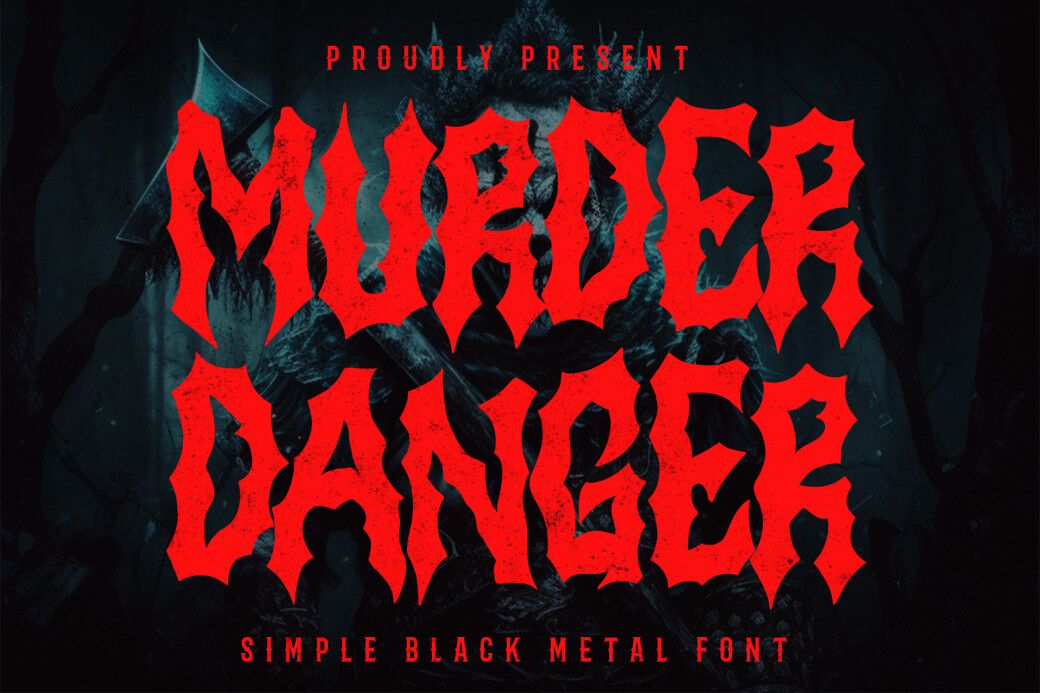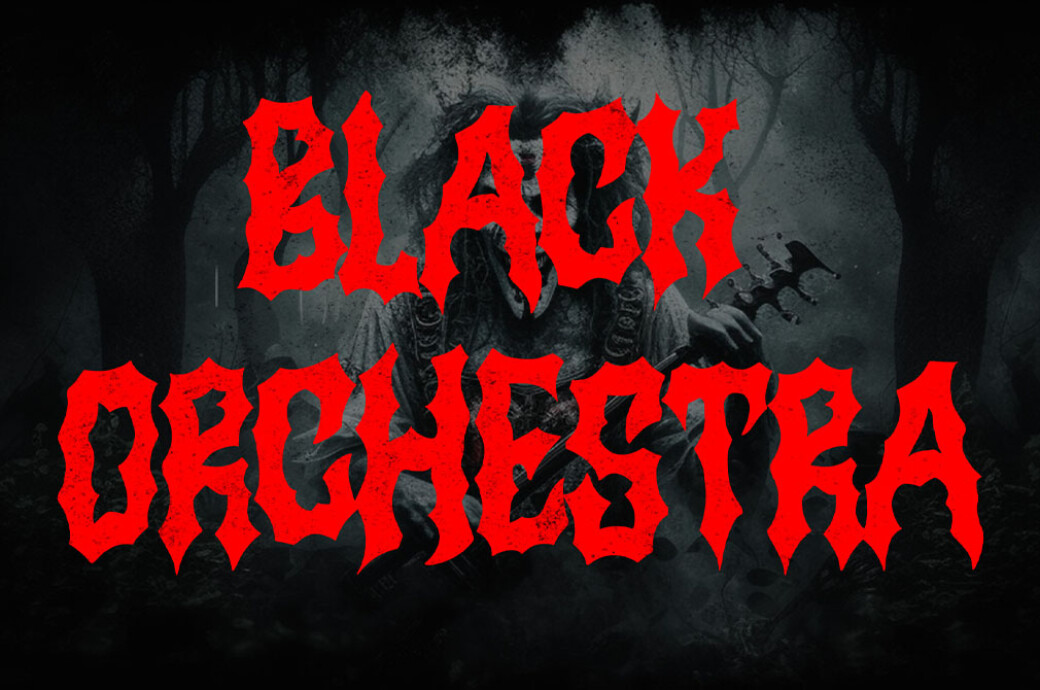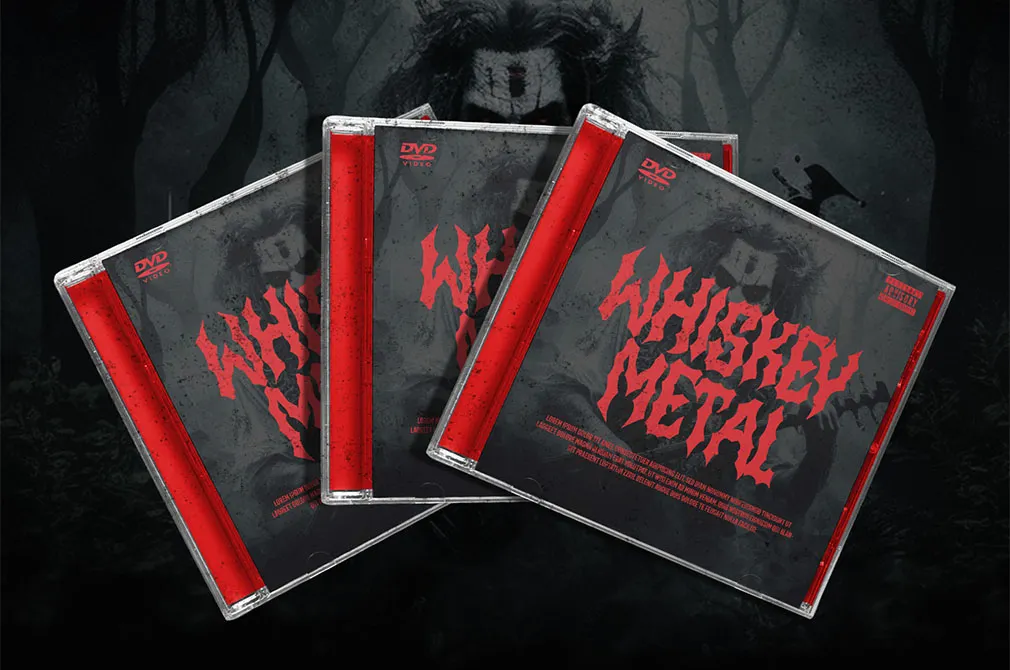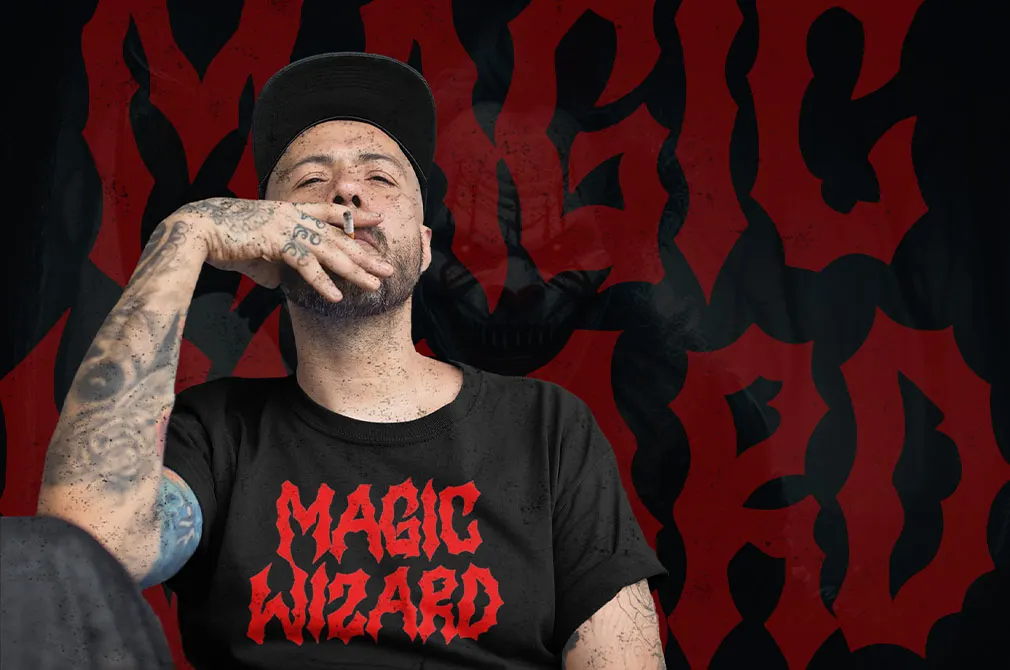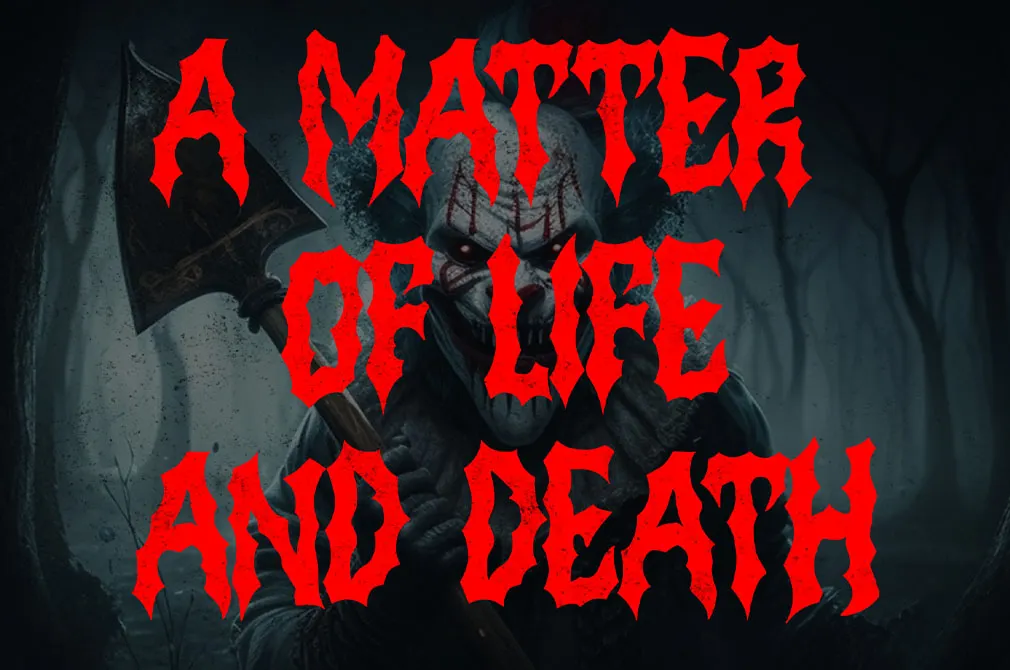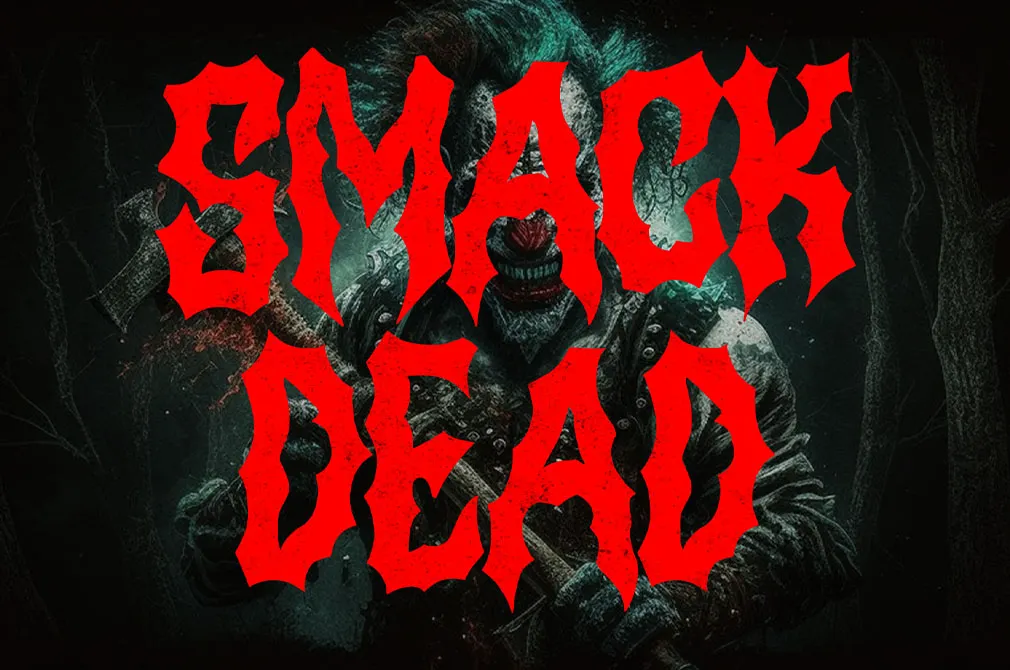
Murder Danger — Horror Font
Murder Danger
Life’s no fun without a good scare! Though Halloween time already passed, it’s hard to resist a good horror font. No need to limit yourself — a perfect typeface is here!Welcome an eerie and menacing font that will send shivers down your spine! It comes with a full letter set, numbers and punctuation, so no matter what text you need to type, you’ll be able to do it with no problems.